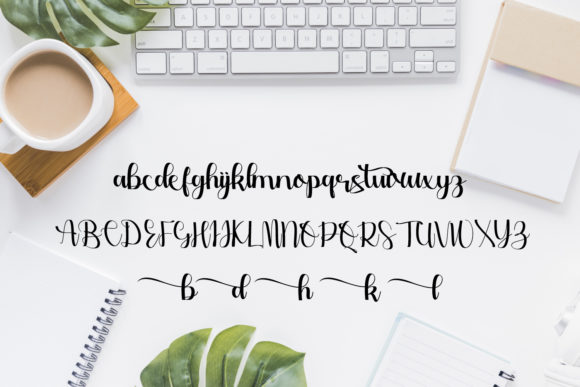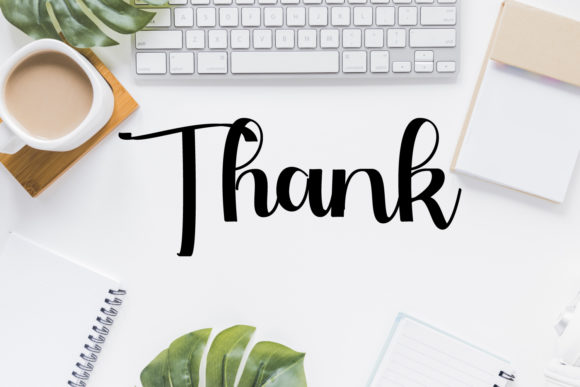
Introduction to Jasuka Font
Jasuka is a sweet and friendly handwritten font.
Key Features of Jasuka Font
Why Choose Jasuka Font?
Jasuka Font offers exceptional quality and versatility, making it a valuable addition to your design toolkit. Whether you’re creating for personal projects or commercial use, Jasuka Font delivers professional results.